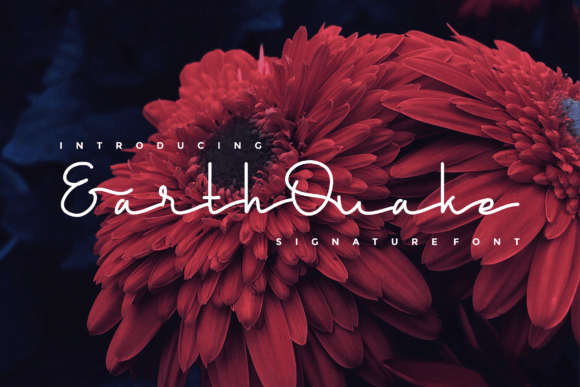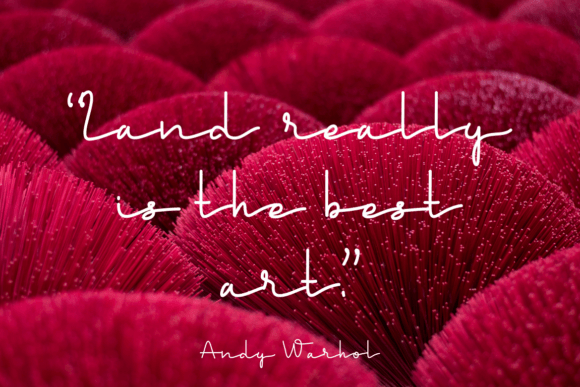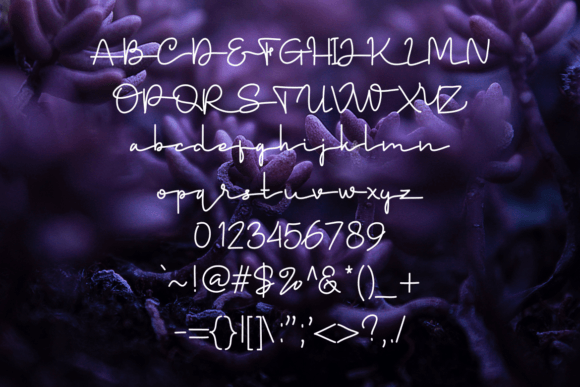
Introducing Earth Quake Font: The Fun and Modern Handwritten Signature Font
Are you tired of using the same old fonts for your designs and crafts? Look no further! Earth Quake Font is a fun and modern handwritten signature font that’s perfect for adding a personal touch to your projects. Whether you’re a designer, crafter, or simply someone who loves to create, this font is sure to become your new go-to.
What Makes Earth Quake Font So Special?
Earth Quake Font is a unique and stylish handwritten font that’s perfect for a variety of projects. Its modern and fun design makes it ideal for crafts, digital design, presentations, and even making greeting cards. The font’s versatility is one of its standout features, allowing you to use it for both personal and professional projects.
As a designer or crafter, you’re always on the lookout for new and exciting fonts to add to your collection. Earth Quake Font is a great addition to any design arsenal, offering a fresh and modern take on traditional handwritten fonts. Its clean and elegant lines make it perfect for creating beautiful and eye-catching designs.
Use Earth Quake Font for a Variety of Projects
The possibilities are endless when it comes to using Earth Quake Font. Here are just a few ideas to get you started:
- Crafts: Use Earth Quake Font to add a personal touch to your handmade crafts, such as scrapbooking, card making, and journaling.
- Digital Design: Earth Quake Font is perfect for digital designers who want to add a modern and fun touch to their designs, such as social media graphics, blog posts, and website headers.
- Greeting Cards: Create beautiful and unique greeting cards with Earth Quake Font, perfect for special occasions such as birthdays, weddings, and holidays.
Why Choose Earth Quake Font?
So why choose Earth Quake Font over other fonts? Here are just a few reasons:
- Unique and Stylish: Earth Quake Font is a one-of-a-kind font that’s sure to make your designs stand out.
- Versatile: Use Earth Quake Font for a variety of projects, from crafts to digital design.
- Easy to Read: Earth Quake Font is clean and easy to read, making it perfect for both headings and body text.
- Fun and Modern: Earth Quake Font has a fun and modern design that’s perfect for adding a touch of personality to your projects.
Tips for Using Earth Quake Font
Here are a few tips for getting the most out of Earth Quake Font:
- Experiment with Different Sizes: Earth Quake Font looks great in a variety of sizes, from small and delicate to large and bold.
- Pair with Other Fonts: Earth Quake Font pairs well with other fonts, so don’t be afraid to get creative and try out different combinations.
- Use for Headings and Body Text: Earth Quake Font is perfect for both headings and body text, making it a great all-around font for your projects.
Earth Quake Font is a fun and modern handwritten signature font that’s perfect for designers, crafters, and anyone who loves to create. Its unique and stylish design makes it ideal for a variety of projects, from crafts to digital design. With its versatility, ease of use, and modern design, Earth Quake Font is sure to become your new go-to font.